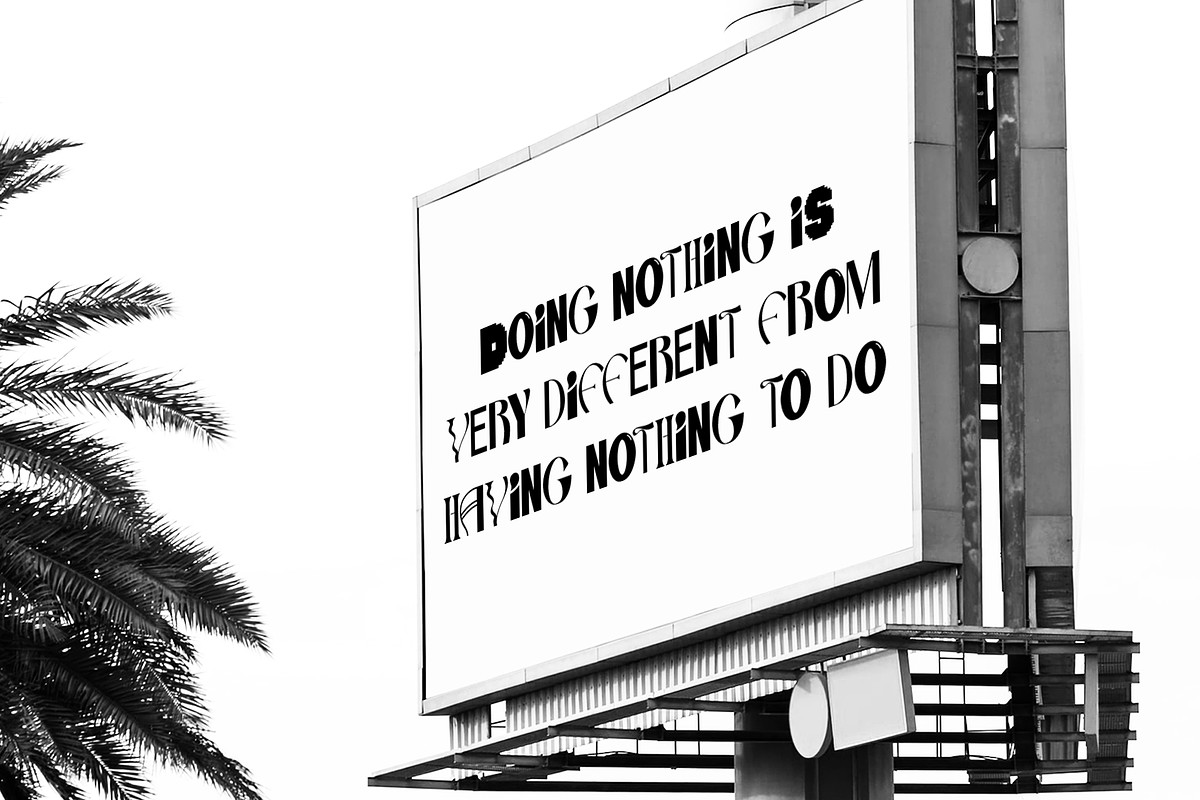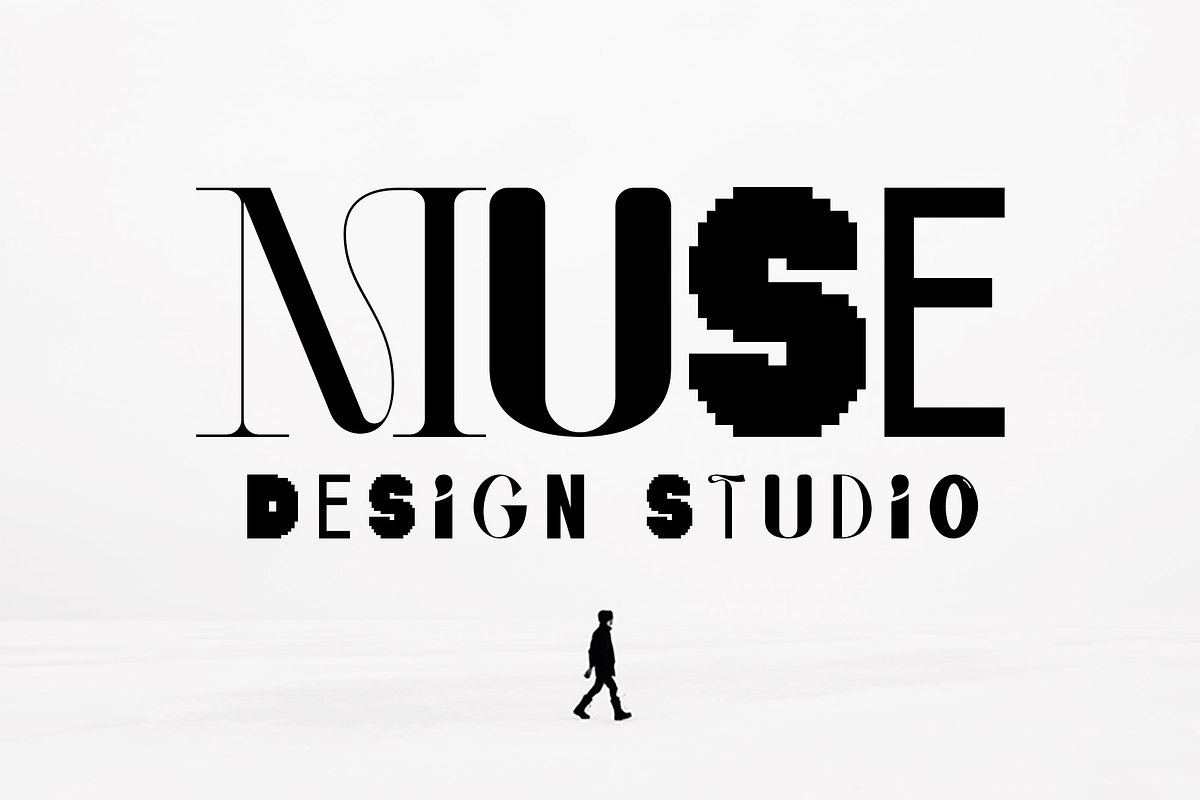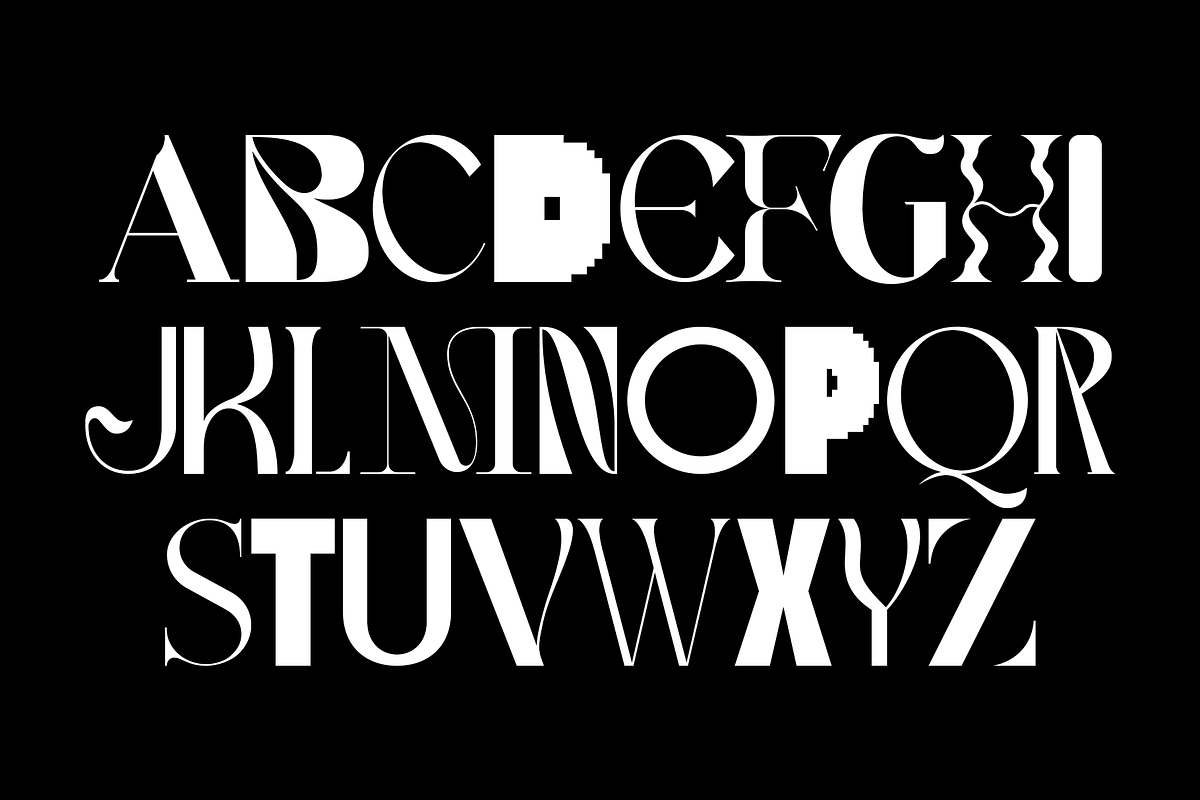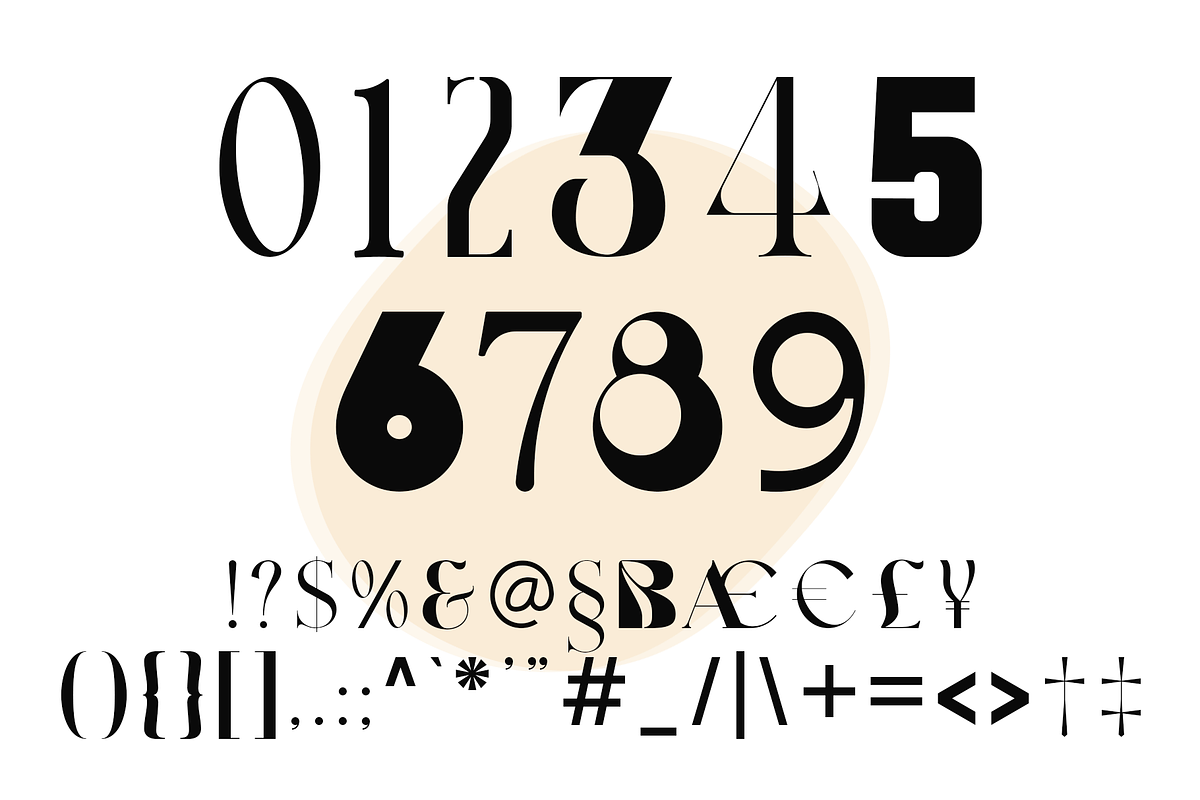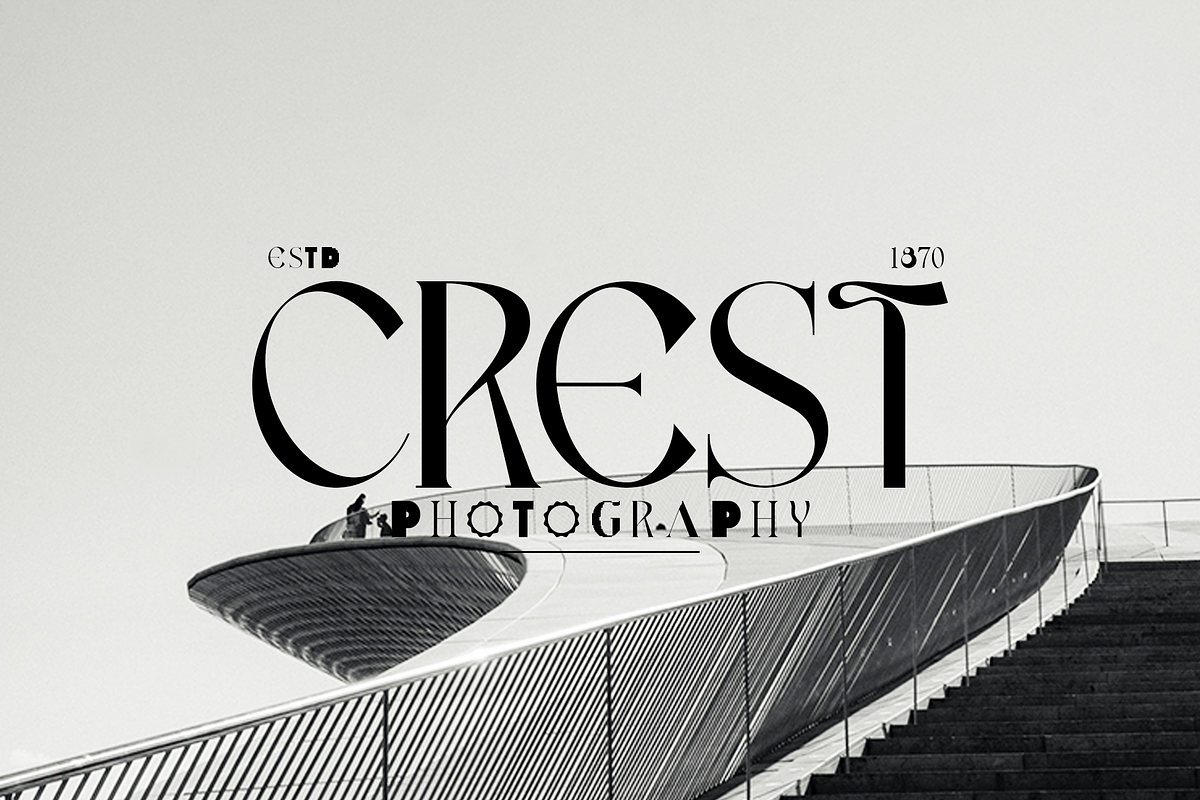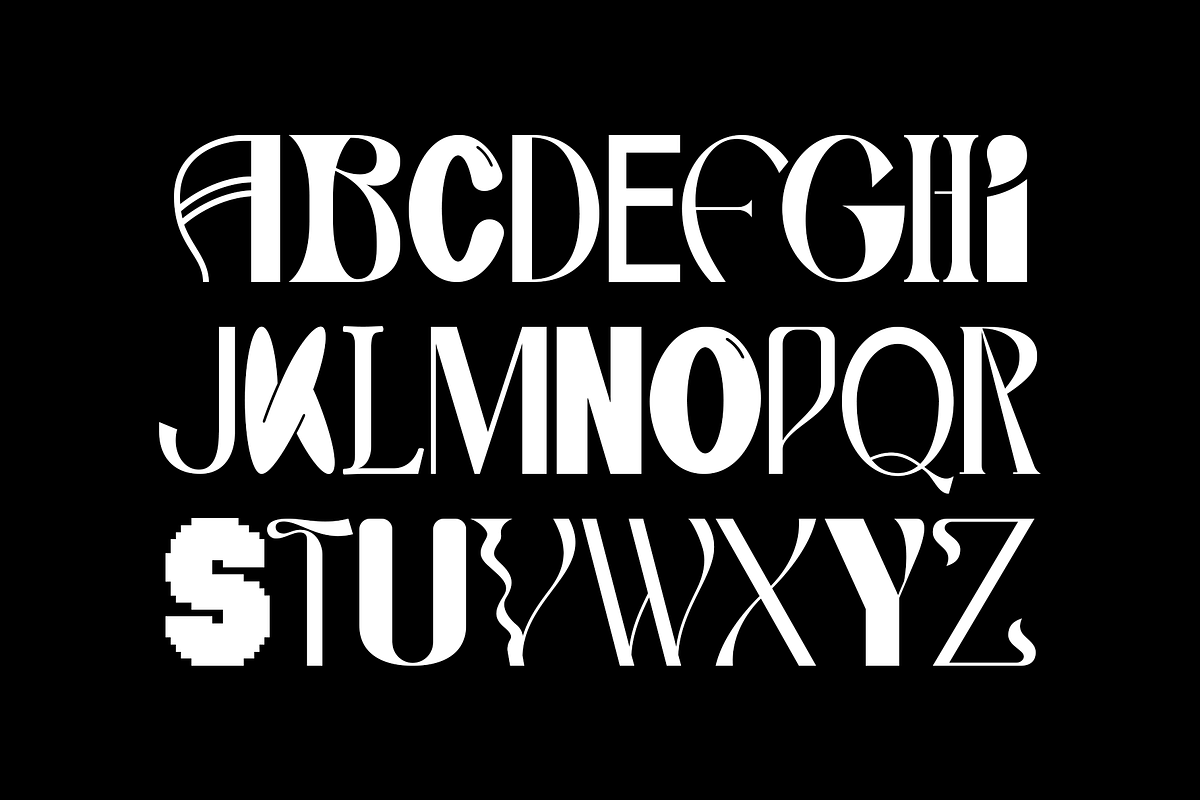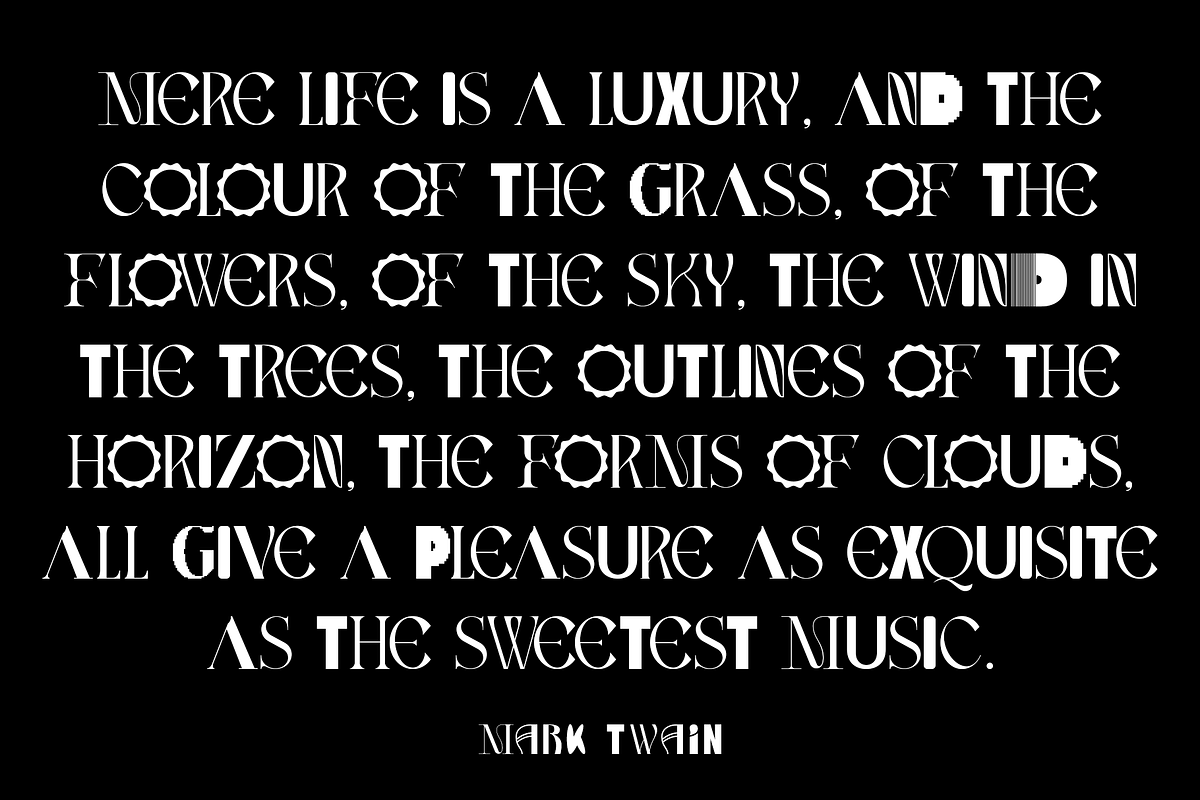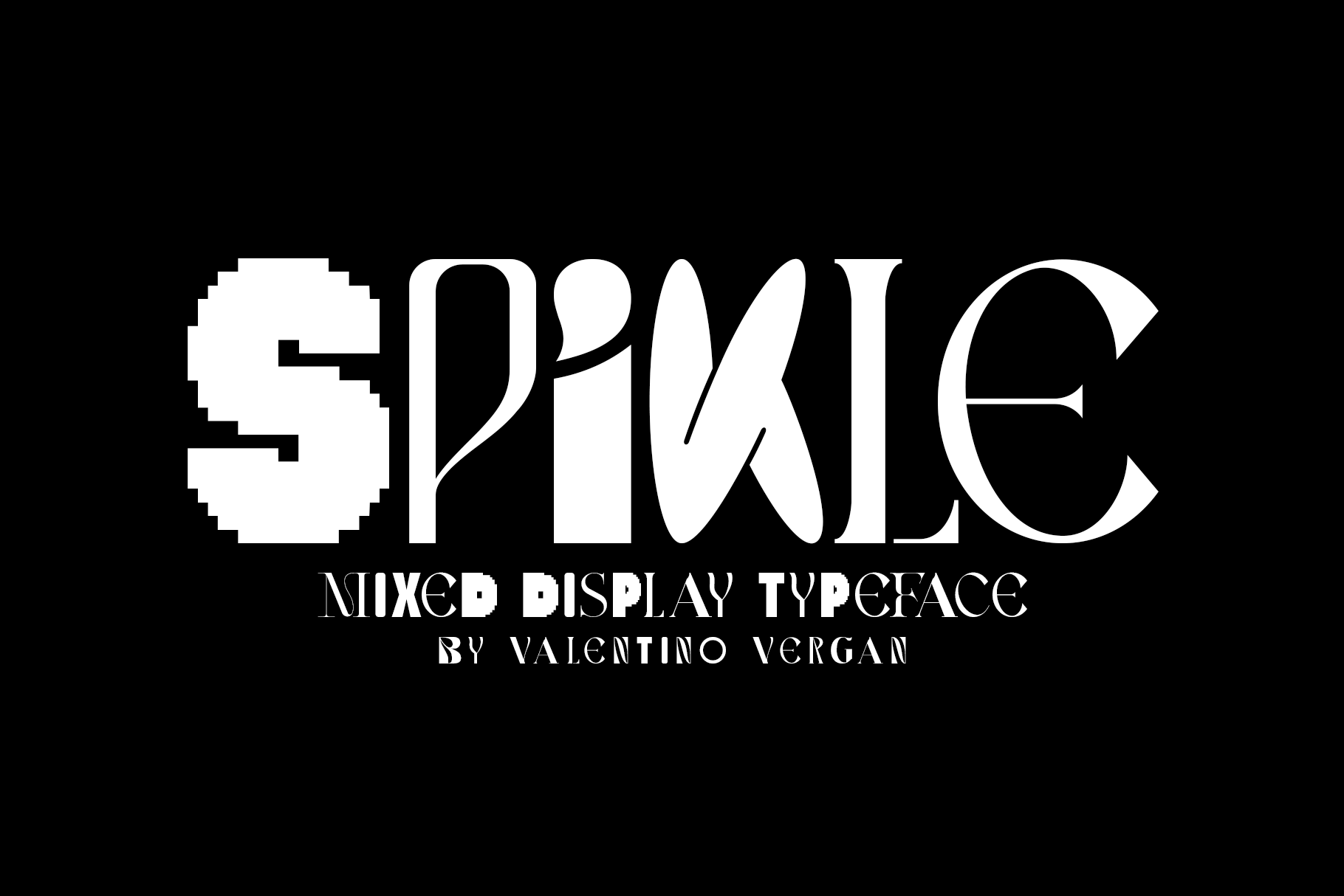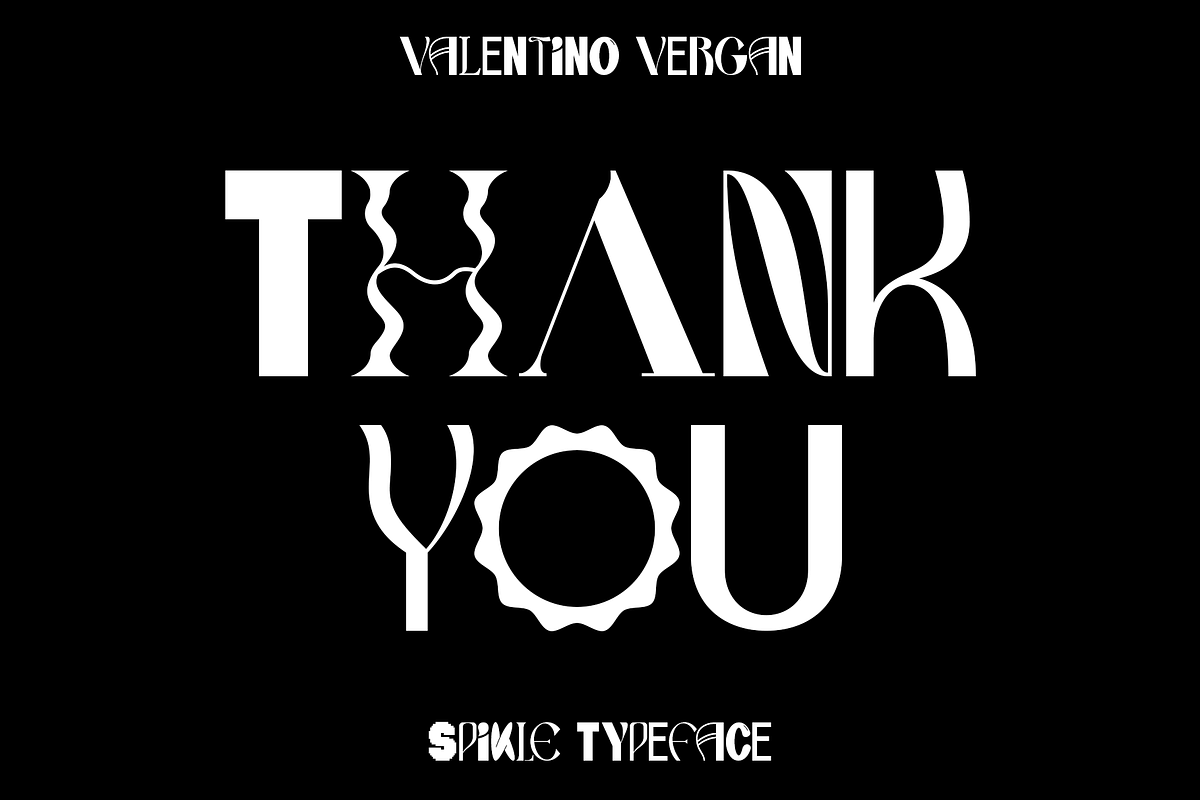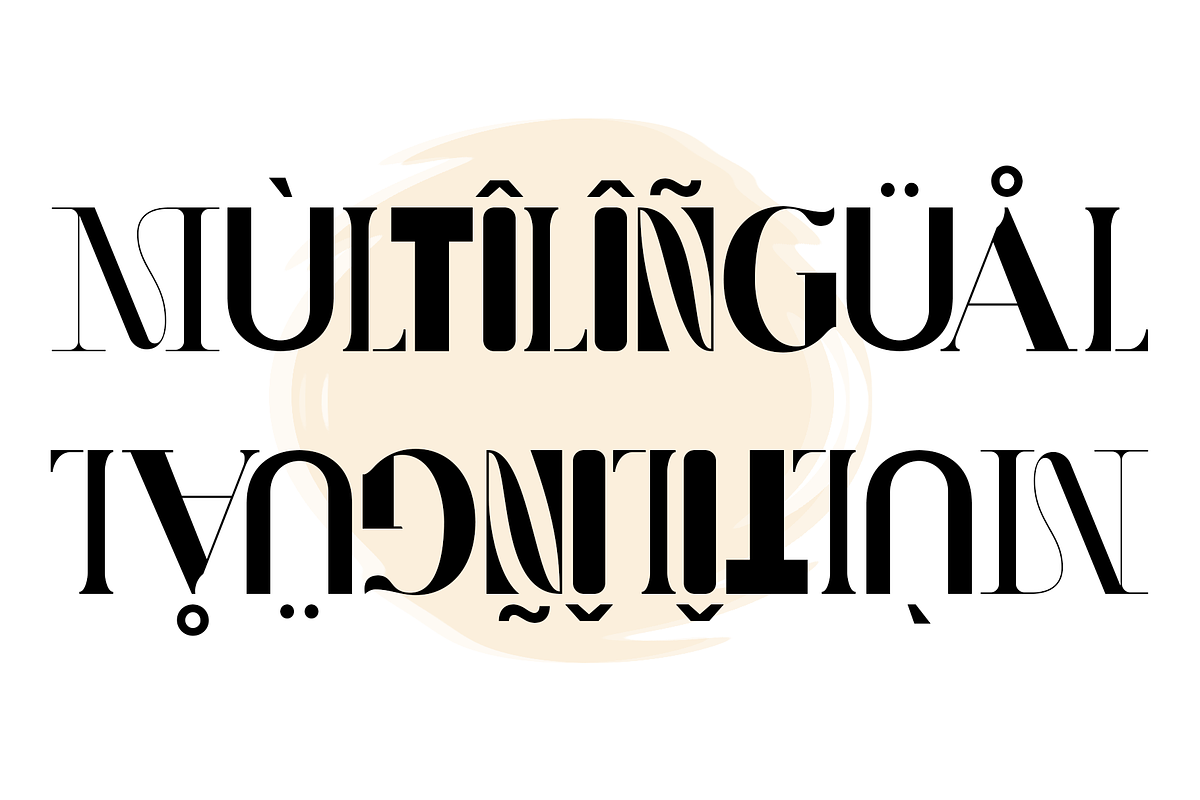
Spikle - Mixed Display Typeface
Spikle is a unique mixed display typeface that is very eye catching. Spikle contains a mix-up of different uppercase letters from different typestyles, these distinct letter combinations will make your next project really standout. Spikle is perfect for creative project such as: branding, logos, quotes, titles, product packaging and much more.